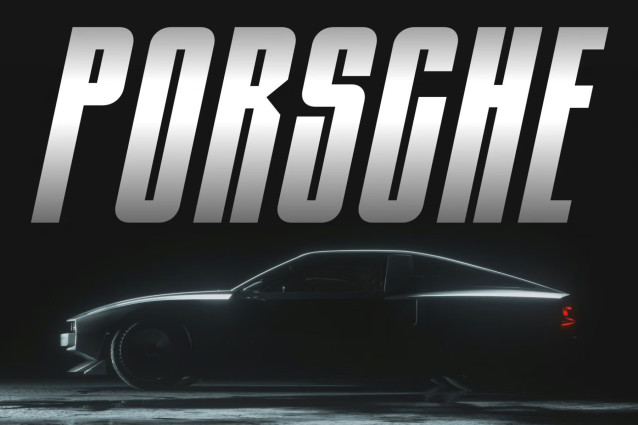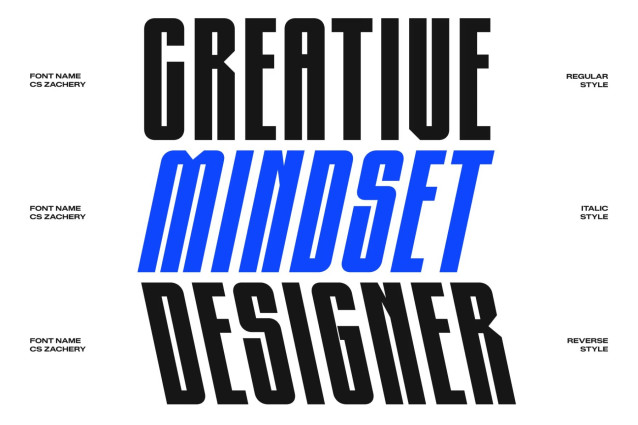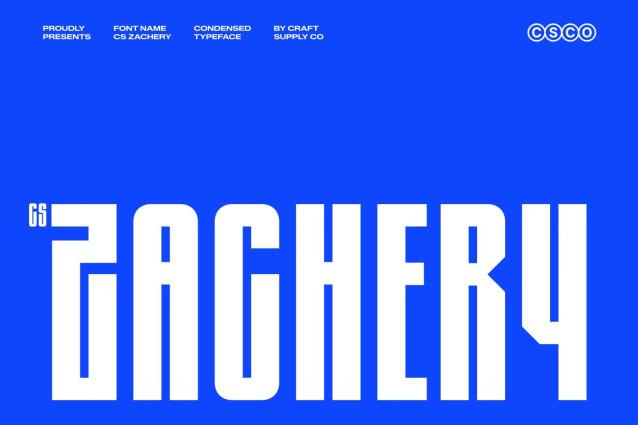
CS Zachery – Condensed Font
CS Zachery – Bold Condensed Display Sans Serif: Where Industrial Precision Meets Futuristic Power
Condensed Proportions with High-Impact Presence
This is a bold condensed display sans serif built for maximum visual impact. Featuring condensed proportions, bold weight, and a clean geometric construction, it delivers a commanding presence while making efficient use of space. Its narrow counters and compact structure create typography that feels bold, focused, and unmistakably powerful.
Rounded Terminals with Sharp Angular Cuts
This font achieves a distinctive visual character that feels both modern and dynamic. This contrast between softened edges and sharp details gives the font an industrial-inspired aesthetic while maintaining excellent readability. The result is a typeface that communicates confidence, precision, and forward-thinking design.